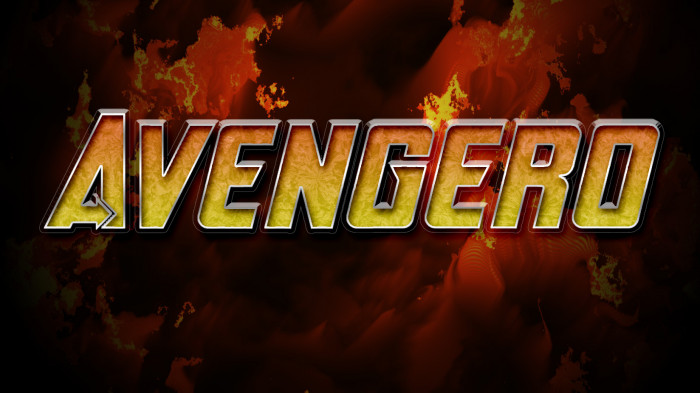
Happy Belated 10th Birthday Fontstruct! Here's the first of three Superheroic fonts that were also ten cinematic years in the making.
@geneus1 - As today is the release date of a certain Marvel blockbuster (#19 - Infinity War), I was curious to see if you were going to release another movie logo.  Instead, you manage to surprise us with three (!): Avengero, Panthera, & Ragnarox.  Congratulations on the accomplishments, Gene.
So you think you can do the arrows on the 3, 6, 8, and 9?
Correction: Do you think you can do the arrows on the 3, 6, 8, and 9?
Jeepers, another quality work!  What a great way to get people excited about Infinity War.  Thanks for all your hard work!
Great work (on all three)! Such smooth transitions from rounded corners to diagonals.
One thing that catches my eye is that the M looks quite bottom-heavy, with a big gap in the middle.
Congratulations! FontStruct Staff have deemed your FontStruction worthy of special mention. “Avengero” is now a Top Pick.
Congratulations on the TP I'm impressed how well you captured the idea of 'solid,power,determination' in this style.
@Se7enty-Se7en:  I know I can do the arrows on 3, 6, 8, and 9.  ;-)
@Yautja:  Thanks for mentioning that. I already know. I was just too lazy to make the additional angles before releasing it on time. I've updated the M's to what they should look like now.
@KyooshiFonts: Watch what comes next...
i think i found the secret.
1:3 angles.